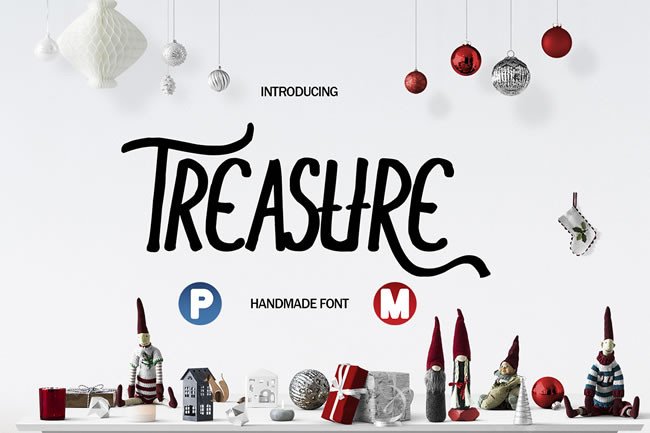
Introducing Treasure Font - The Key to Unlocking Creativity and Expression!
Are you ready to embark on a typographic adventure that will leave you enchanted? Look no further than Treasure Font, a captivating display font ready to ignite your imagination. Each letterform is a work of art, meticulously handcrafted to evoke a sense of wonder and whimsy.
Whether you're crafting heartfelt invitations or creating eye-catching posters, Treasure Font will elevate your designs to new heights. Its playful and versatile nature makes it the perfect choice for a wide range of projects, including:
- Mesmerizing invitations that will announce your special occasion with a touch of whimsy
- Greeting cards that will convey your heartfelt messages with an artistic flair
- Branding materials that will leave a lasting impression with their unique and captivating style
- Business cards that will showcase your brand's personality and make you stand out from the crowd
- Quotes that will inspire and motivate with an unforgettable visual impact
- Posters that will transform your walls into captivating displays of art and expression
With Treasure Font, the boundaries of creativity dissolve, making it the ideal choice for designers, artists, and anyone who seeks to add a spark of magic to their projects. Its versatility knows no bounds, ensuring that your imagination can soar without limits.
So, dive into the realm of Treasure Font and unlock a world of endless possibilities. Let your creativity flourish and your designs shine with a brilliance that will enchant all who behold them!